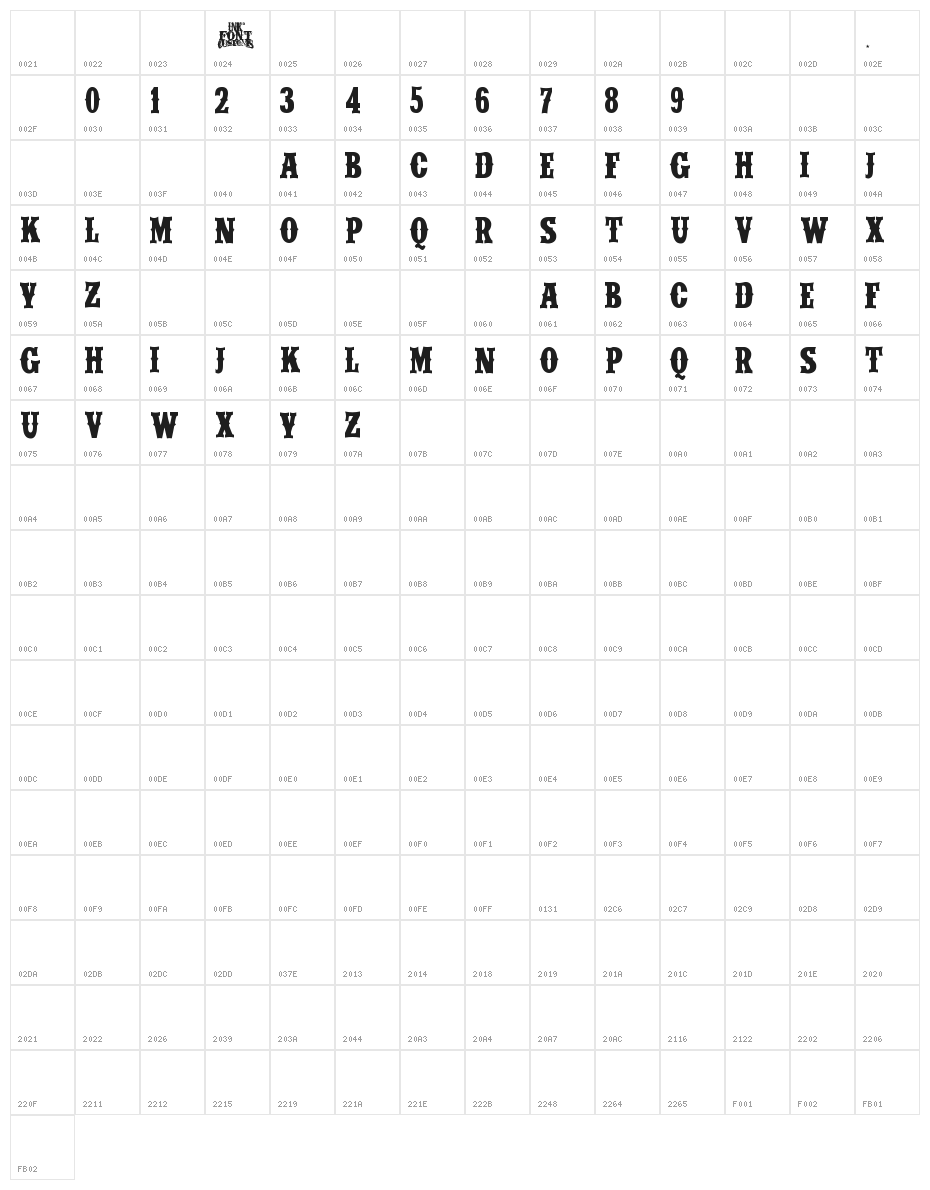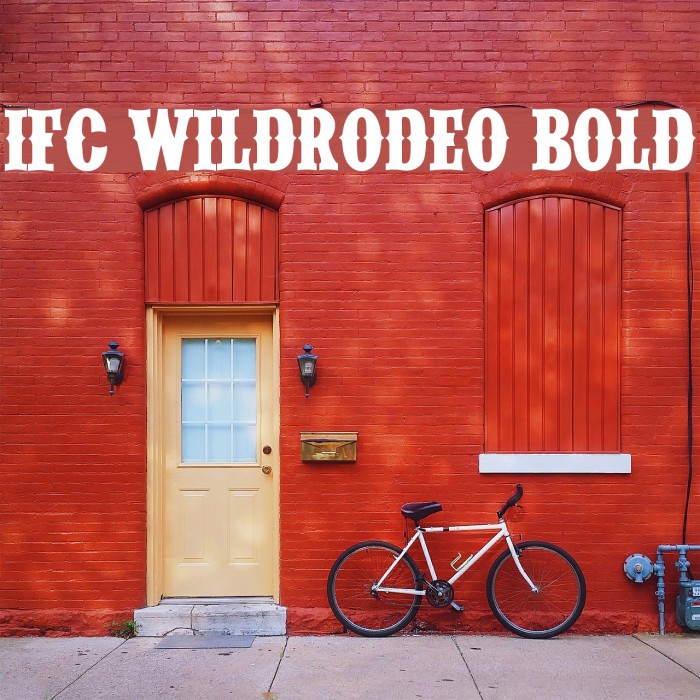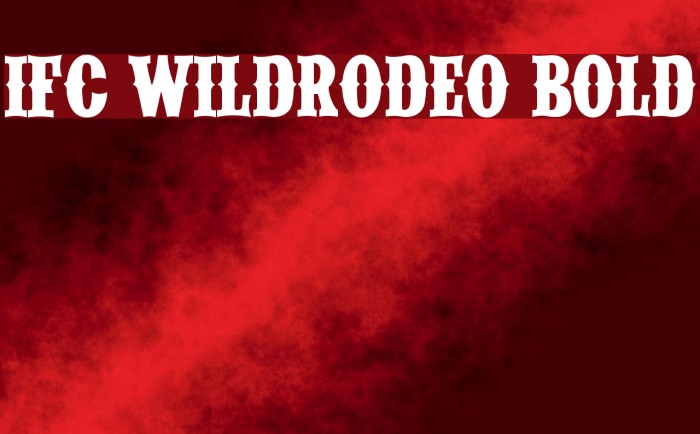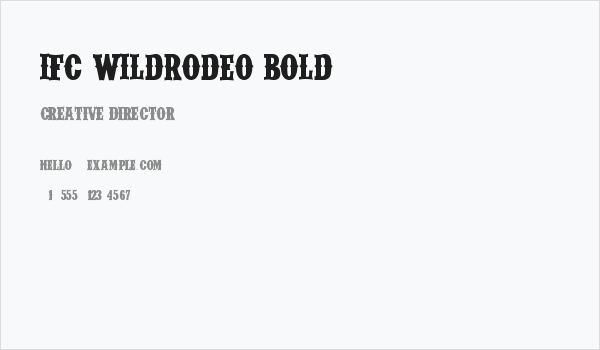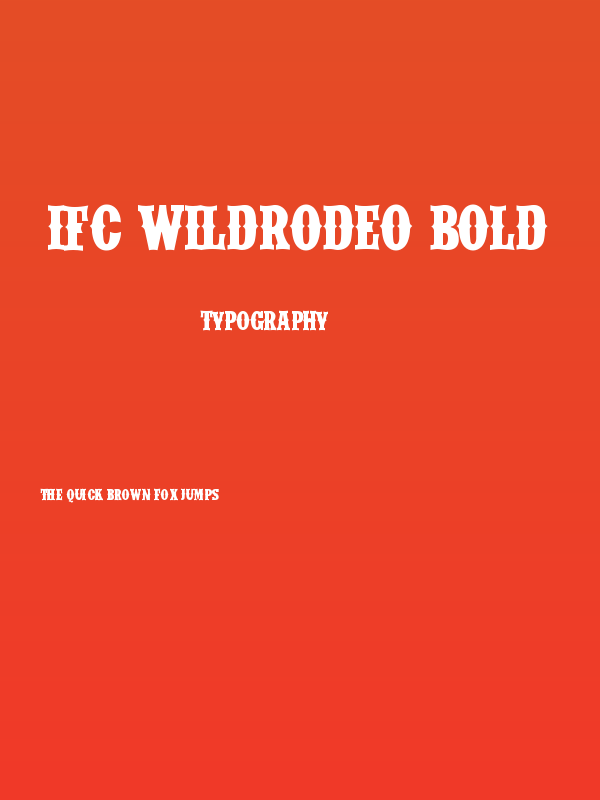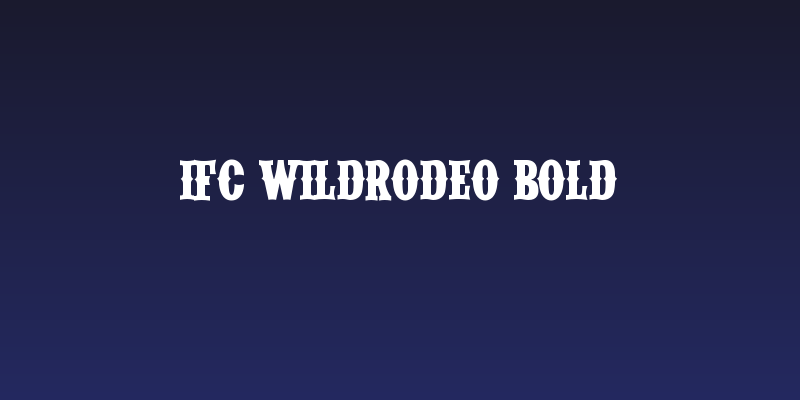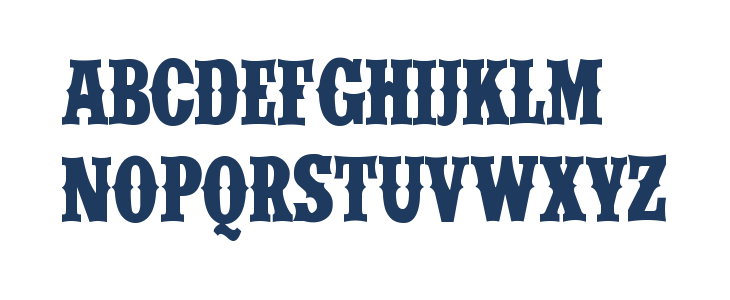
IFC WILDRODEO Bold Font
IFC WILDRODEO Bold Description
This font exudes a bold and adventurous spirit, characterized by its thick, slab-like serifs and robust letterforms. The uppercase letters are strong and commanding, with a slightly condensed appearance that enhances their impact. The lowercase letters maintain the same boldness, ensuring consistency across all text. Numbers are equally bold, making them stand out prominently. The font's unique style is reminiscent of the Wild West, with a rugged and daring aesthetic that captures attention. Special characters are designed to match the overall boldness, ensuring they integrate seamlessly with the rest of the text.
Proposed ProjectsIdeal for projects requiring a bold, adventurous look, such as posters, event flyers, branding for outdoor or adventure-themed products, and any design needing a touch of ruggedness.